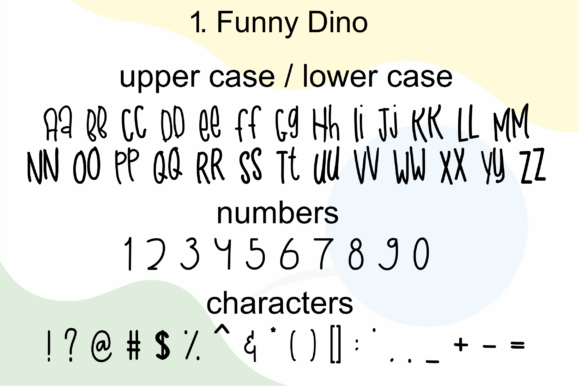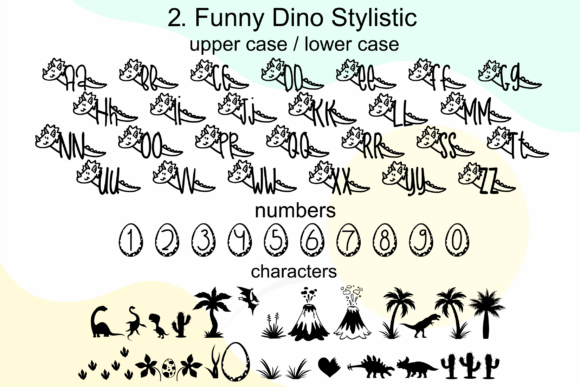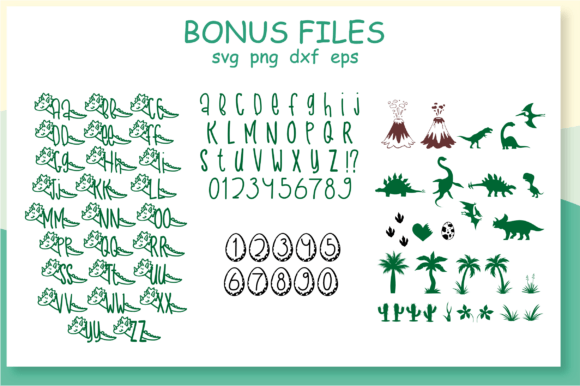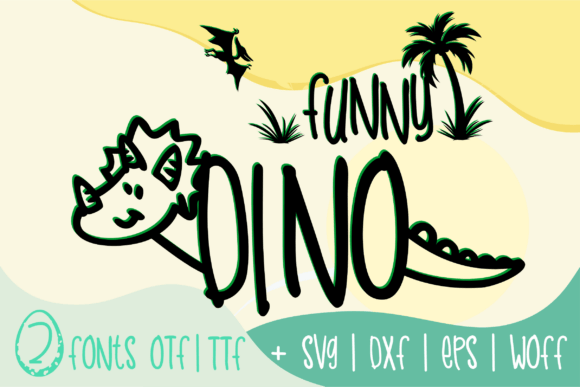
Introduction to Funny Dino Font
Funny Dino is a cheerful and playful decorative typeface that brings prehistoric fun to your creative projects.
This cute dinosaur-themed font includes two styles — a clean handwritten version and a stylized one with adorable dinosaur illustrations The uppercase letters feature cute dinosaur heads, while the lowercase letters continue with playful tails.